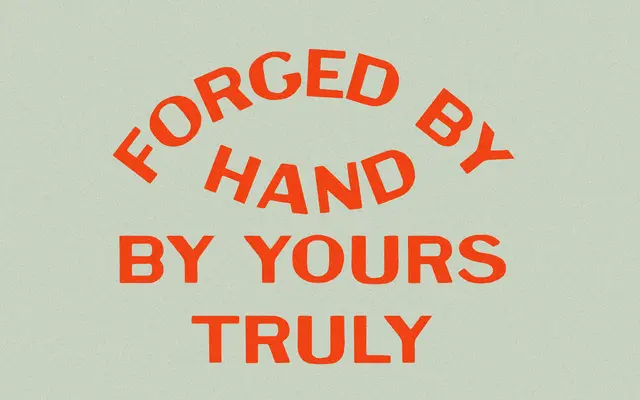
Basal specimen from Taylor Penton
A single-weight revival drawn from a circa 1910 bottle label, stripped back to its most functional form for branding and packaging work.
Pulled from early twentieth-century bottle lettering and updated for contemporary use, this is a compact, no-frills display face with a distinctly utilitarian character. It ships as a single Regular weight covering basic Latin with a limited selection of accented characters, making it best suited to short-form applications such as logos, labels and packaging. The glyph set of 150 characters is lean, so it works hardest at headline sizes where its period source material shows most clearly.
Revived from a circa 1910 bottle label, the typeface carries the sturdy, stripped-back character of early twentieth-century commercial lettering, placing it firmly in the display and vintage revival category.